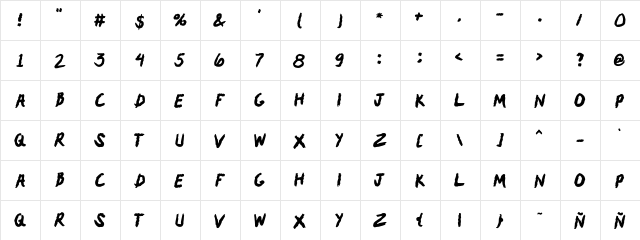
Dragos Brush
Design Context for Dragos Brush Typeface
Dragos Brush flows with the natural rhythm of handwritten lettering, making it ideal for designs that call for warmth and personal expression.
Font Pairing: Combine Dragos Brush with a simple geometric sans for maximum contrast — the tension between flowing curves and clean structure is a classic typographic pairing.
Pro Tip: Pair Dragos Brush with a clean sans-serif for supporting text. The contrast between fluid script and geometric structure creates an elegant typographic hierarchy.